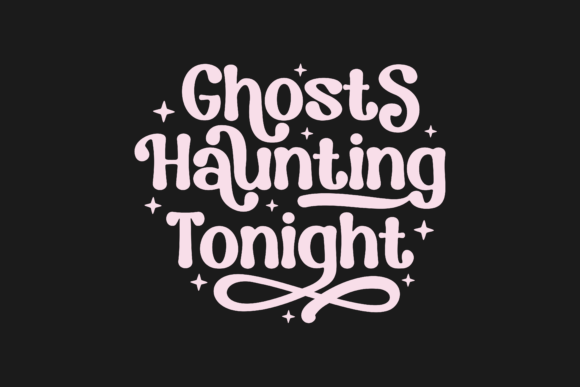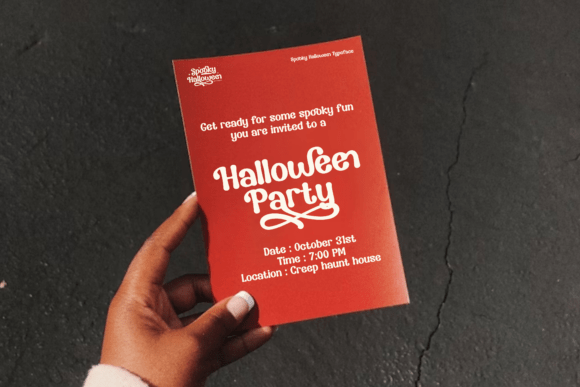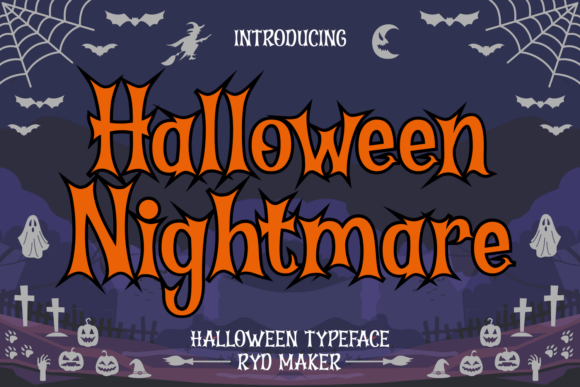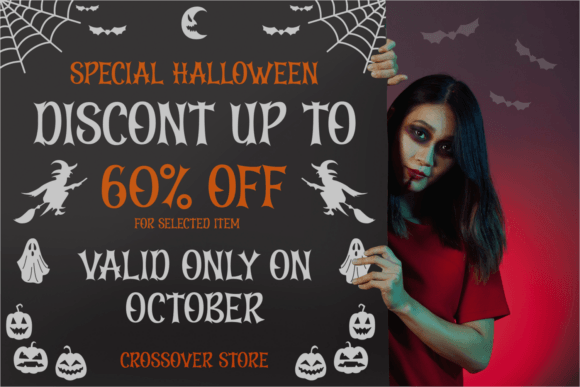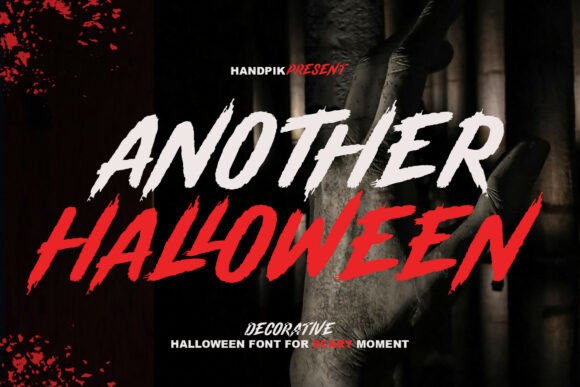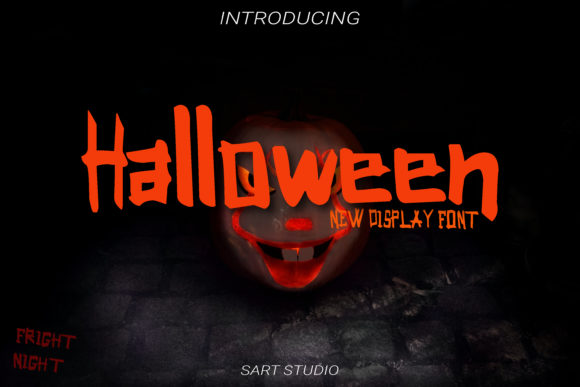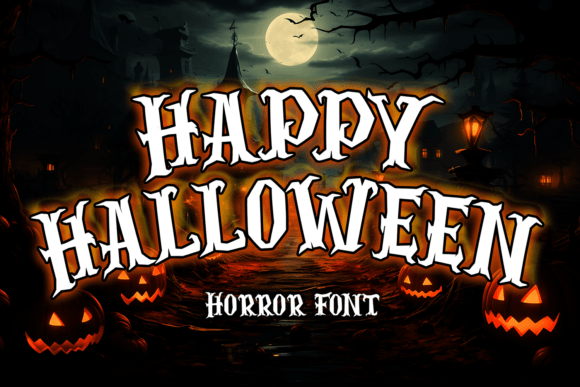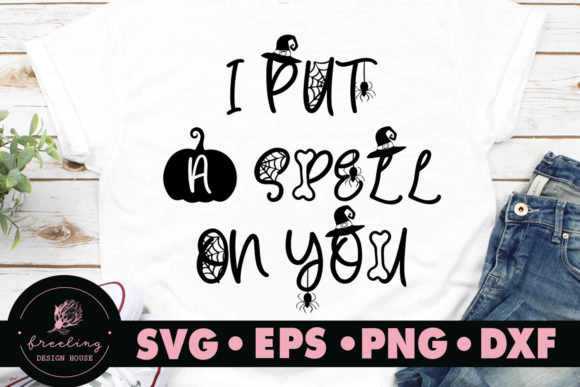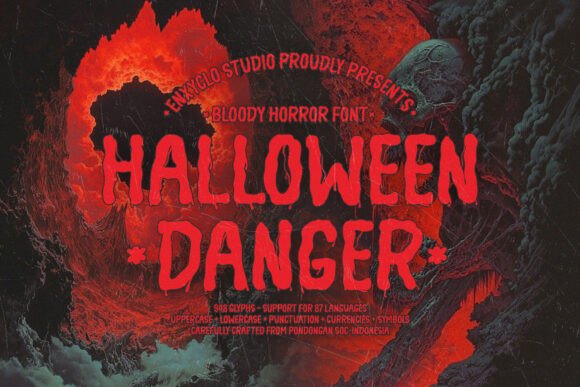
21 Best Halloween Display Fonts to Bring Your Designs to Life
The witching hour has arrived, and I’ve conjured up something wickedly special for you — the 21 best Halloween display fonts to haunt your next creative project. From bloody horror lettering to whimsical witch-inspired scripts, this cauldron of typefaces has a little bit of everything for every spooky season need. Grab your broomstick and let’s dive into the ghoulishly good collection waiting below!
Halloween Font
There’s something so satisfying about a font that fully commits to its theme, and this Halloween Font does exactly that. This Halloween display font leans hard into gothic-inspired letterforms, with elongated, twisted serifs and creepy little details like cobweb patterns and bat-wing embellishments that make each character feel genuinely haunted. It’s playful and sinister all at once, striking that perfect spooky-season balance.
I love pairing it with a classic Halloween palette — deep blacks, blood reds, eerie greens — to really amplify that eerie, thematic charm. Whether it’s for a chilling poster, screen-printed t-shirts, or spooky embroidery work, this font brings enough enchanting detail to make any seasonal project feel like it truly belongs to the spookiest time of year.
Halloween Witchlight Font
October has a certain mystique to it, and Halloween Witchlight captures that otherworldly mood beautifully. This Halloween display font feels hauntingly sophisticated rather than overtly spooky, with an exclusive uppercase ligature function that adds a genuinely ethereal, elegant charm — it’s the kind of typeface that whispers “chilling” instead of shouting it.
What I love most is how effortlessly it elevates everyday items into something a little more magical, from t-shirts and mugs to wall decor and invitation cards. That subtle, ghostly grace makes it a wonderful choice whenever a project calls for sophisticated Halloween charm rather than the usual scary-season clichés.
Spooky Halloween Font
Groovy and retro isn’t a combination you see often in Halloween typefaces, but Spooky Halloween pulls it off with real charm. This Halloween display font has a distinct, throwback personality, and with alternate and ligature features built in, it gives you plenty of room to personalize each project and make the design feel truly your own.
Its versatility genuinely surprised me — this is a font that works just as well on a wedding invitation as it does on a festive greeting card or a bold poster. From branding and t-shirt designs to mugs, hats, and pillows, Spooky Halloween brings a memorable, retro-cool character to whatever you throw its way.
Halloween Nightmare Font
Every so often a font comes along that just feels unmistakably its own, and Halloween Nightmare is exactly that kind of standout. This Halloween display font has a bold, distinctive character that sets it apart from more traditional spooky styles, giving it real presence the moment it’s applied to a design.
It’s quickly become one of those fonts I reach for when a project needs an extra edge of creativity, since it has this knack for elevating even simple Halloween ideas into something more striking and memorable. If you’re after a font with genuine personality and a bit of nightmarish flair, this one delivers.
Another Halloween Font
If you want a font that feels genuinely aggressive rather than just spooky, Another Halloween brings exactly that raw, high-energy edge. This Halloween display font features jagged, hand-painted strokes and a heavy italicized stance that gives it real urgency — it doesn’t just suggest horror, it screams it, with a rough, distressed texture that feels ripped straight from a slasher-film poster.
This one’s a great fit whenever a project needs to strike a little fear or intensity, whether that’s horror movie titles, haunted house posters, or edgy streetwear branding. It also works surprisingly well for metal-inspired brands looking for that sharp, high-impact aesthetic that commands attention instantly.
Halloween Font
Sometimes the simplest approach works best, and this Halloween Font is proof of that — no elaborate details, just fun, clean lettering that instantly reads as festive. This Halloween display font keeps things light and easygoing, making it an approachable pick whenever a project calls for a straightforward party vibe rather than something dark or dramatic.
It’s a natural fit for t-shirts, posters, and movie title designs, especially when you want that classic Halloween party energy without too much fuss. Simple as it is, this font brings just the right amount of festive charm to product names and seasonal designs alike.
Baby Halloween Font
Not every Halloween font needs to be scary to earn its spot in the season, and Baby Halloween proves it with a cool, modern take on the theme. This Halloween display font has a clean, contemporary look that feels fresh rather than gimmicky, making it easy to slot into designs that want a lighter, more polished Halloween touch.